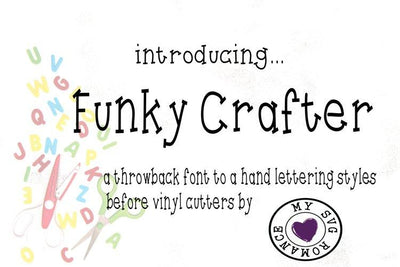
Funky Crafter - A Throwback Font To Hand Lettering
Do you remember hand lettering projects before you owned a Cricut or Silhouette? I do and I created this font based on one of the styles that I used on my painted wood signs. I hope you enjoy it!
Funky Crafter is a hand-lettered font made up of capital letters A-Z, lowercase letters a-z, numbers 0-9, some accented characters, and punctuation.